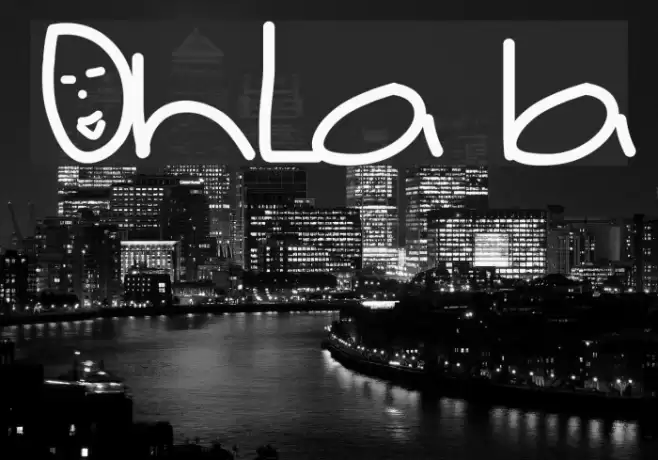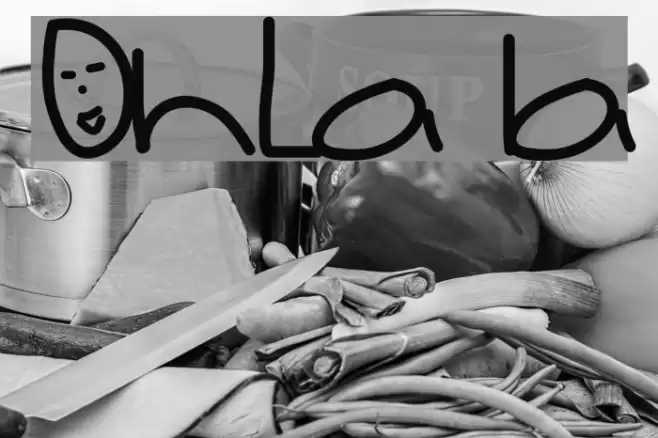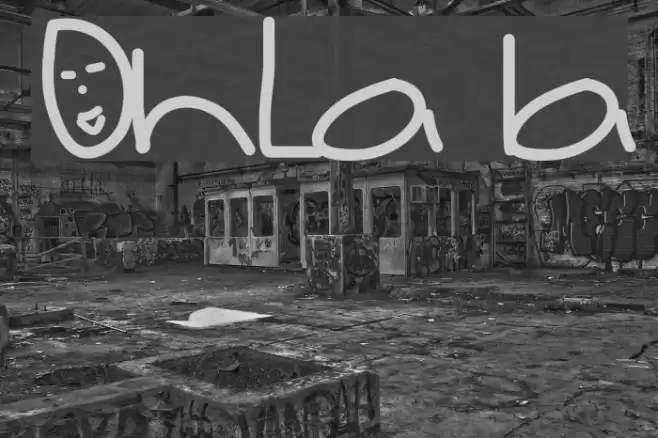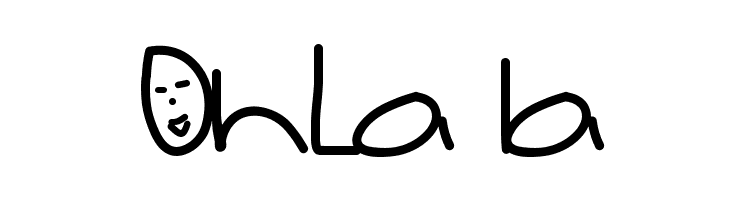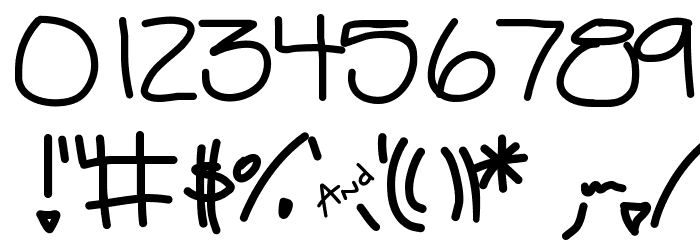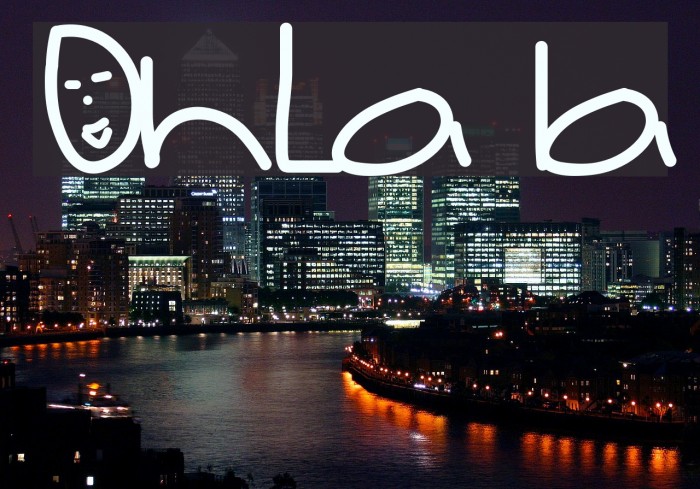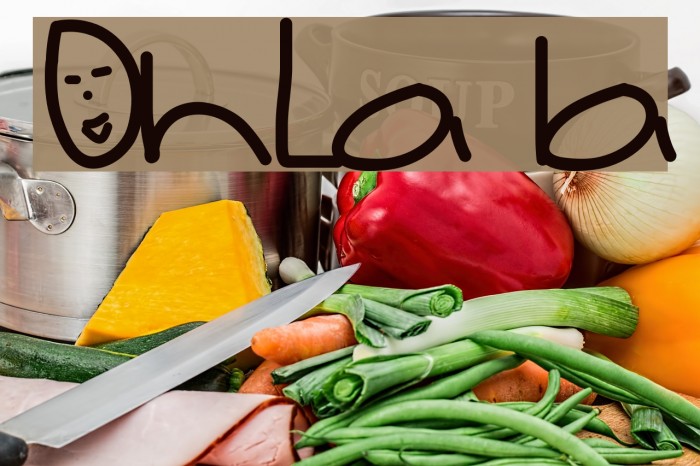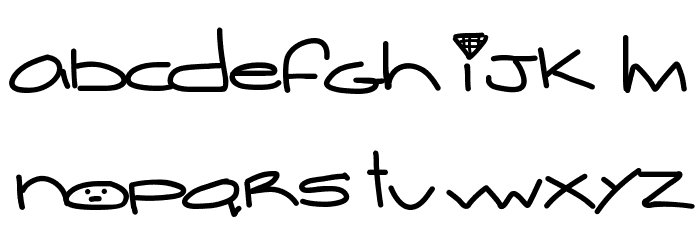
OhLala Font
OhLala Description
This playful and whimsical font features a handwritten style with a casual, informal appearance. The characters are uneven and slightly irregular, adding a sense of spontaneity and creativity. The uppercase letters are bold and rounded, while the lowercase letters maintain a consistent flow with a slightly narrower form. Numbers and special characters follow the same playful design, with unique elements like a smiley face within the 'O'. The font's overall aesthetic is fun and approachable, making it ideal for projects that require a personal touch or a sense of humor.
A playful, handwritten font with a whimsical and informal style from Uncategorized fonts.
- Proposed Projects: Ideal for children's books, greeting cards, playful branding, and casual invitations.
- Use Case: Logos, Headlines, Casual Text